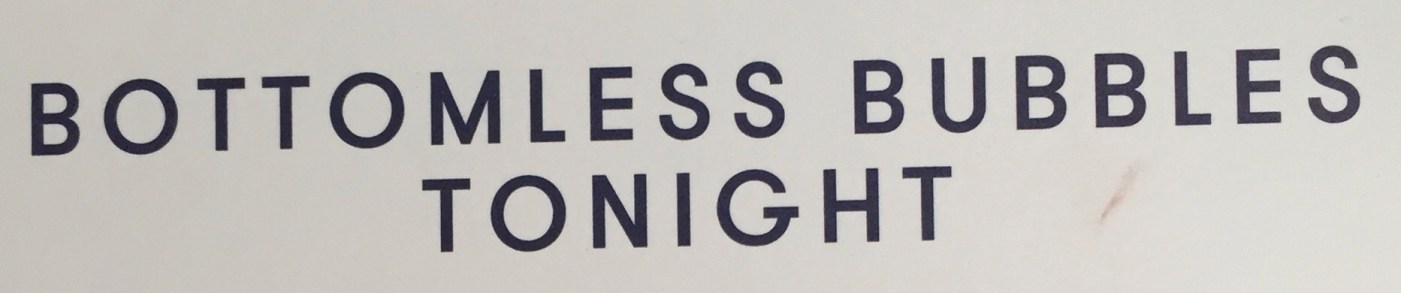
Help with identifying a geometric sans from a restaurant in London
I know I've seen this somewhere before and I'm sure I'll kick myself when I find out, but I can't seem to locate it in a sea of geometric sans.  I especially like the G